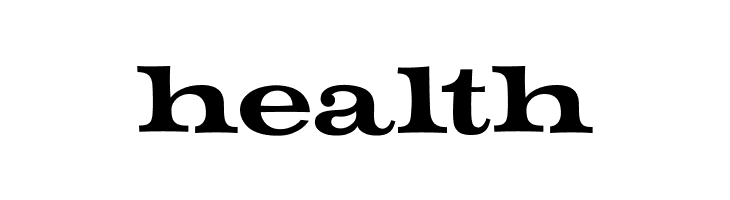
Brighamdemo Font
A classic serif font with elegant strokes and moderate contrast, perfect for sophisticated designs.
bridamount Font
A classic serif font with elegant strokes and balanced proportions.
HaloHandletter Font
A playful handwritten font with fluid, connected letterforms and a charming cursive flow.
Coconut Beach Personal Use Font
A flowing, cursive font with a relaxed, handwritten style.
Treova Demo Font
A modern, clean sans-serif font with a balanced and professional appearance.
Qoency Demo Font
A modern, elegant font with high contrast and subtle serifs, perfect for luxury branding.
Mister Sinatra Slim Font
A bold serif font with a classic yet modern style, featuring strong serifs and consistent strokes.
Gleamore Demo Font
A bold, dynamic font with sharp angles and decorative swashes.
Brennan Font
A bold, slab serif font with a vintage yet modern appeal.
Imoon Demo Font
A playful, bold font with rounded, hand-drawn characters.
Creattion Demo Font
A modern, geometric font with a clean and professional appearance.
YoureInvited-Heavy Font
An elegant script font with flowing, cursive letterforms and sophisticated style.
Bestone Font
A fluid, elegant handwritten font with a personal touch.
Qoency Italic Demo Font
A sleek, modern italic font with smooth curves and elegant slant.
Tropical Taste Demo Font
A bold, dynamic font with thick strokes and a modern-vintage flair.
Mofulina Regular Font
A bold, high-contrast serif font with elegant and classic styling.
Cashup Regular Font
A modern, clean sans-serif font with consistent stroke width and balanced design.
Raich Artifex Demo Font